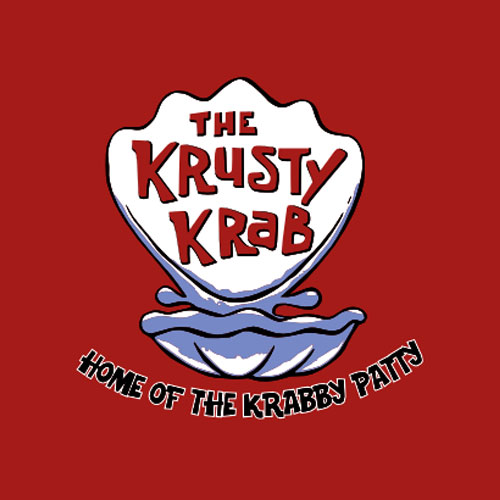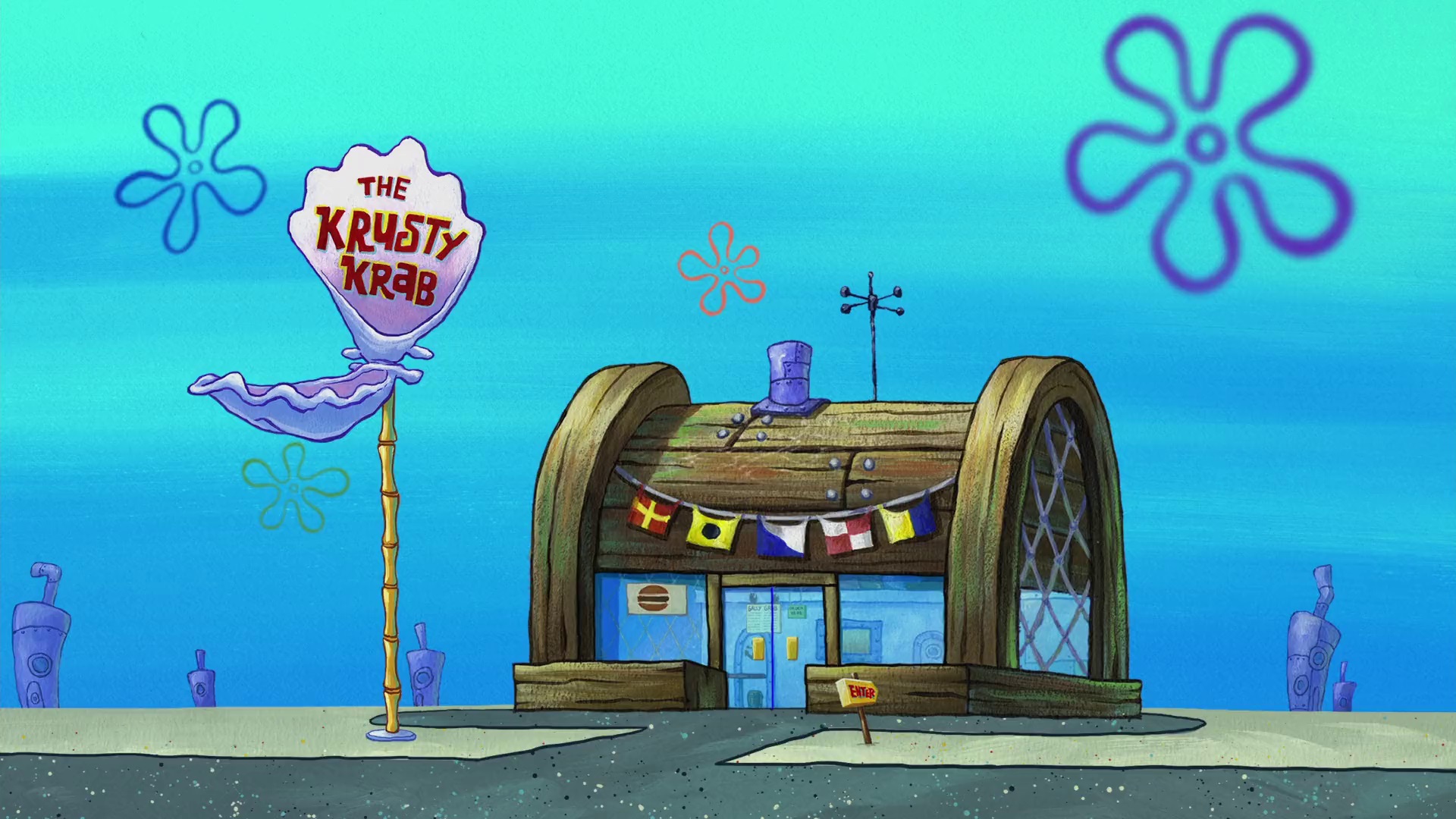
Krusty Krab Font - It's based on the graphics from the. It's based on the graphics from the 2001 game. Spongebob fonts are fan creations of your favorite tv show, spongebob squarepants on nickelodeon. Krabby patty is a recreation of the main font used throughout the spongebob squarepants franchise. Krabby patty is a recreation of the main font used throughout the spongebob squarepants franchise.
Krabby patty is a recreation of the main font used throughout the spongebob squarepants franchise. Spongebob fonts are fan creations of your favorite tv show, spongebob squarepants on nickelodeon. It's based on the graphics from the 2001 game. Krabby patty is a recreation of the main font used throughout the spongebob squarepants franchise. It's based on the graphics from the.
Krabby patty is a recreation of the main font used throughout the spongebob squarepants franchise. It's based on the graphics from the. Krabby patty is a recreation of the main font used throughout the spongebob squarepants franchise. It's based on the graphics from the 2001 game. Spongebob fonts are fan creations of your favorite tv show, spongebob squarepants on nickelodeon.
It's based on the graphics from the. Krabby patty is a recreation of the main font used throughout the spongebob squarepants franchise. Krabby patty is a recreation of the main font used throughout the spongebob squarepants franchise. It's based on the graphics from the 2001 game. Spongebob fonts are fan creations of your favorite tv show, spongebob squarepants on nickelodeon.
Krabby patty is a recreation of the main font used throughout the spongebob squarepants franchise. Krabby patty is a recreation of the main font used throughout the spongebob squarepants franchise. Spongebob fonts are fan creations of your favorite tv show, spongebob squarepants on nickelodeon. It's based on the graphics from the. It's based on the graphics from the 2001 game.
It's based on the graphics from the. Krabby patty is a recreation of the main font used throughout the spongebob squarepants franchise. It's based on the graphics from the 2001 game. Krabby patty is a recreation of the main font used throughout the spongebob squarepants franchise. Spongebob fonts are fan creations of your favorite tv show, spongebob squarepants on nickelodeon.
Spongebob fonts are fan creations of your favorite tv show, spongebob squarepants on nickelodeon. Krabby patty is a recreation of the main font used throughout the spongebob squarepants franchise. Krabby patty is a recreation of the main font used throughout the spongebob squarepants franchise. It's based on the graphics from the 2001 game. It's based on the graphics from the.
Krabby patty is a recreation of the main font used throughout the spongebob squarepants franchise. It's based on the graphics from the 2001 game. It's based on the graphics from the. Spongebob fonts are fan creations of your favorite tv show, spongebob squarepants on nickelodeon. Krabby patty is a recreation of the main font used throughout the spongebob squarepants franchise.
Krabby patty is a recreation of the main font used throughout the spongebob squarepants franchise. It's based on the graphics from the 2001 game. Spongebob fonts are fan creations of your favorite tv show, spongebob squarepants on nickelodeon. Krabby patty is a recreation of the main font used throughout the spongebob squarepants franchise. It's based on the graphics from the.
Krabby patty is a recreation of the main font used throughout the spongebob squarepants franchise. Spongebob fonts are fan creations of your favorite tv show, spongebob squarepants on nickelodeon. It's based on the graphics from the 2001 game. It's based on the graphics from the. Krabby patty is a recreation of the main font used throughout the spongebob squarepants franchise.
It's based on the graphics from the 2001 game. Krabby patty is a recreation of the main font used throughout the spongebob squarepants franchise. It's based on the graphics from the. Krabby patty is a recreation of the main font used throughout the spongebob squarepants franchise. Spongebob fonts are fan creations of your favorite tv show, spongebob squarepants on nickelodeon.
It's based on the graphics from the. Krabby patty is a recreation of the main font used throughout the spongebob squarepants franchise. Spongebob fonts are fan creations of your favorite tv show, spongebob squarepants on nickelodeon. It's based on the graphics from the 2001 game. Krabby patty is a recreation of the main font used throughout the spongebob squarepants franchise.
It's Based On The Graphics From The 2001 Game.
Krabby patty is a recreation of the main font used throughout the spongebob squarepants franchise. Krabby patty is a recreation of the main font used throughout the spongebob squarepants franchise. Spongebob fonts are fan creations of your favorite tv show, spongebob squarepants on nickelodeon. It's based on the graphics from the.